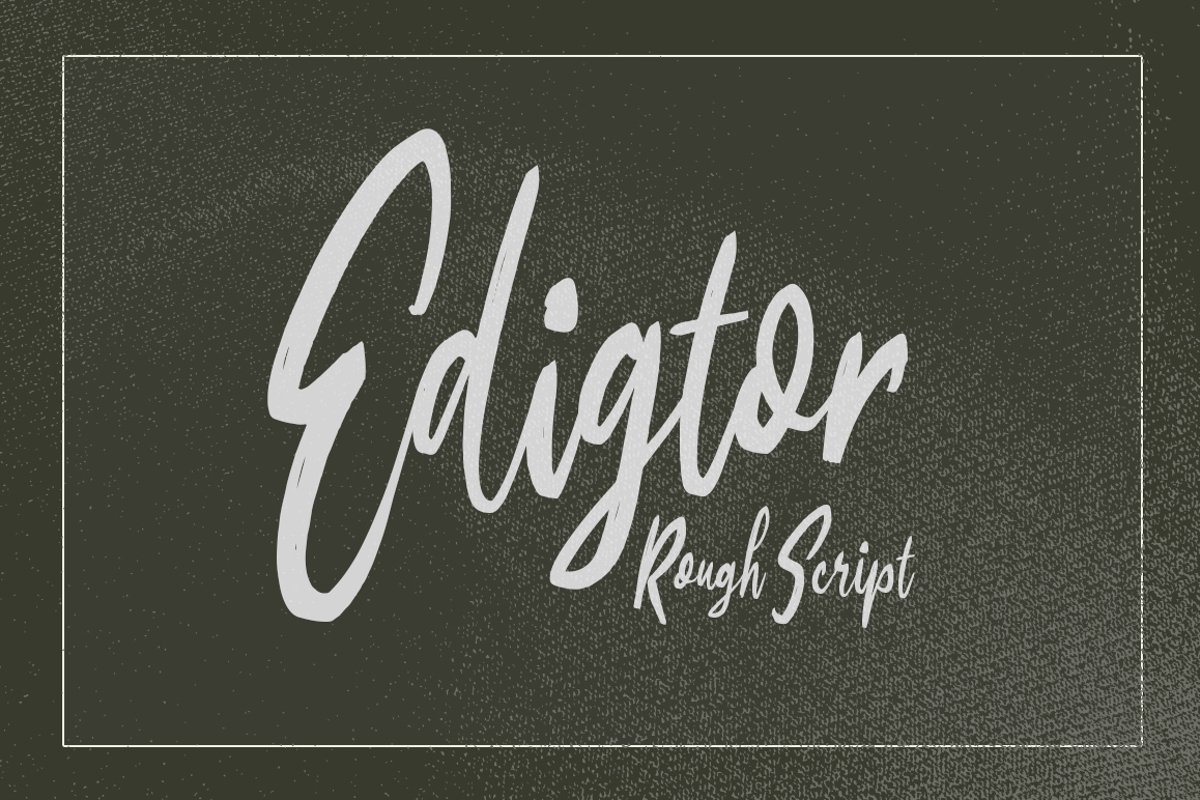
Edigtor - Rough Script
Edigtor
Introducing Edigtor script font which has a rough hand lettering brush style. So it looks natural like a handmade. This font is best used for your design project that has the concept of fun, girly, romantic and elegant. Can also be applied to the design of a logotype, header website, wedding logo, romantic design, makes some lettering a quote, T-shirt design etc.Also supported PUA encoded. Simply copy and paste the alternate characters using the Character Map (Windows), Font Book (Mac) or a software program such as PopChar (for Windows and Mac).This font works best with open-type friendly applications,How to get access alternate glyphs from open type fonts: http://adobe.ly/1m1fn4YFeatures: